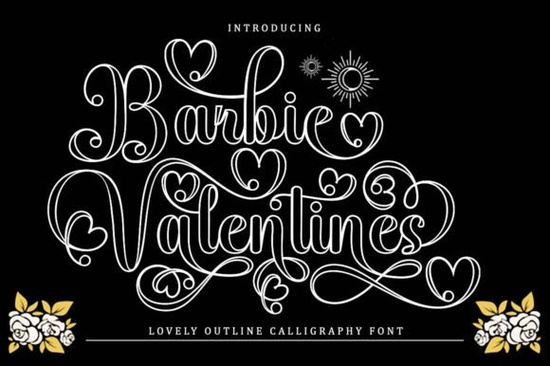
If you're looking for a romantic, feminine font that’s both stylish and easy to read, the Barbie Valentines Outline Font is worth a closer look. Designed with soft calligraphy curves and delicate outlines, it brings a touch of classic charm to Valentine’s Day cards, wedding stationery, or even everyday branding projects that lean into elegance. Unlike overly ornate script fonts that can become hard to decipher, this one keeps letterforms clean while still offering personality through subtle flourishes.
What makes this font especially useful for crafters and small business owners is its balance between visual appeal and legibility. Whether you’re designing printable gift tags, custom mugs, or social media graphics, the open outline style ensures your text remains crisp even at smaller sizes or when layered over patterned backgrounds.
How does Barbie Valentines Outline compare to other script fonts?
Many script fonts lean heavily into either formality or playfulness, but Barbie Valentines Outline Font sits comfortably in the middle. It’s more refined than casual brush scripts like CasualBrush, yet less rigid than formal calligraphy styles. If you’ve used Monday Outline before, you’ll notice Barbie Valentines has softer connections and slightly more variation in stroke width, giving it a hand-lettered feel without sacrificing consistency.
For those who enjoy pairing fonts, consider combining it with a clean sans-serif for contrast or layer it subtly over solid fills using design software. Its outline structure also works well with shadow effects or dual-color fills, which is handy for print-on-demand sellers creating layered SVG files for cutting machines.
Who is this font best suited for?
This font shines in projects that celebrate love, friendship, or femininity but it’s versatile enough for broader use too. Here’s who might find it especially helpful:
- Print-on-demand creators designing Valentine’s T-shirts, tote bags, or greeting cards
- Small bakery or boutique owners crafting seasonal packaging or promotional flyers
- Digital scrapbookers and card makers looking for readable yet decorative typography
- Teachers and parents making classroom valentines or party invitations
Because it includes alternate character variations for certain letters (like swash capitals or looped terminals), you can add just enough flair without overwhelming your layout. This flexibility helps avoid the “too matchy” look that sometimes happens with themed fonts.
If you like the aesthetic but want something bolder, you might also explore Sundae Script Duo, which comes with both solid and outline versions. Or, if you prefer a more modern handwritten vibe, Lockride offers energetic strokes with urban flair. For a fruity-fresh alternative with similar readability, Blueberry Font delivers cheerful curves ideal for spring and summer themes.
Tips for getting the best results
To make the most of the outline style:
- Avoid tiny sizes below 18pt, the hollow centers may fill in on low-resolution prints.
- Use high-contrast color pairings if filling the outlines (e.g., dark outer stroke with light inner fill).
- Test on your intended material vinyl cutters, sublimation printers, and digital screens all render outlines differently.
- Enable OpenType features in design software like Illustrator or Affinity Designer to access alternate glyphs automatically.
And remember: while the name references Barbie, the font’s neutral elegance means it doesn’t feel childish or overly branded. It’s more about timeless romance than plastic nostalgia.